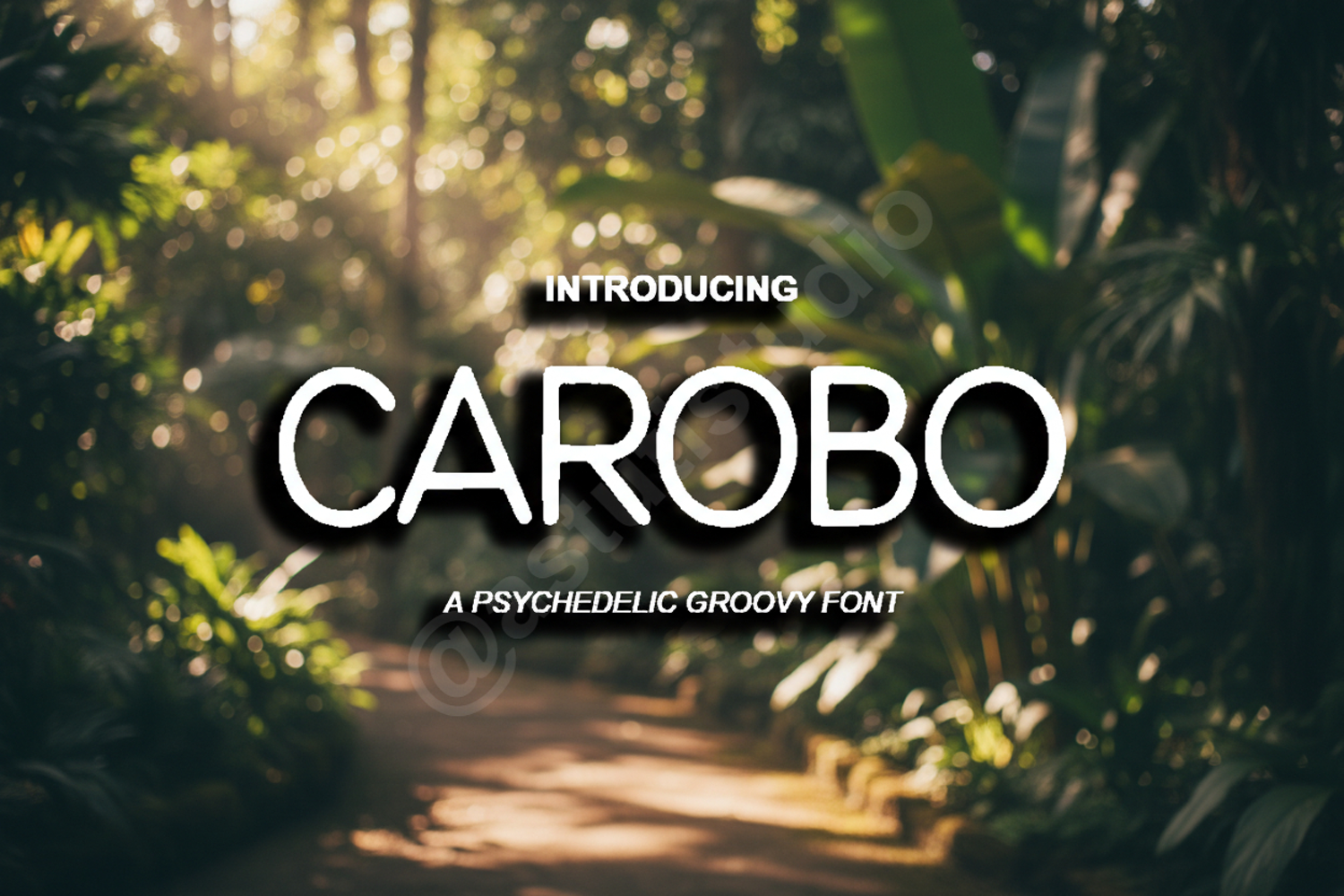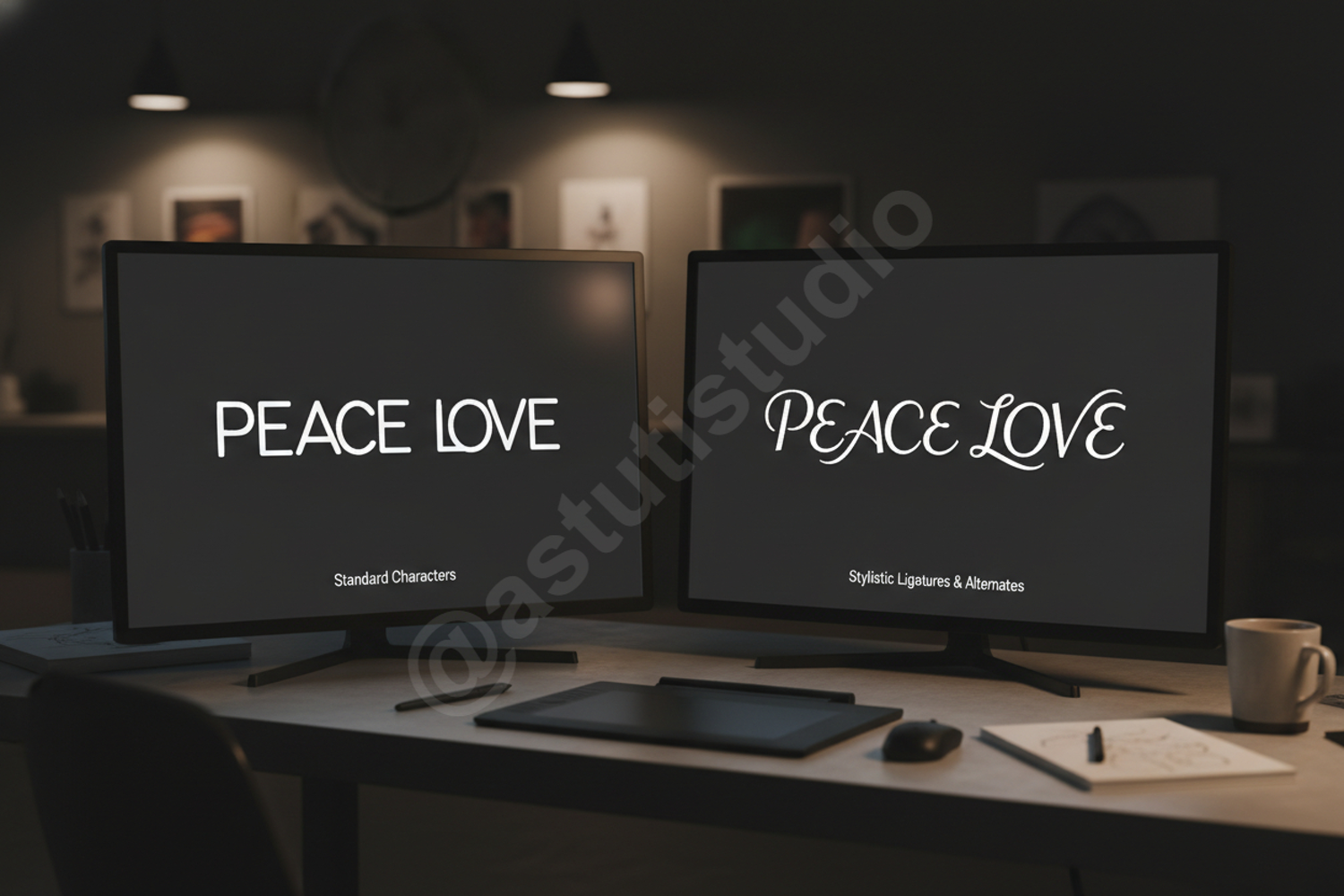
Carobo - Sophisticated Modern Serif Display
Carobo
Elevate your creative projects with Carobo, a premium serif font that masterfully blends classic elegance with a contemporary edge. Designed for those who demand excellence, Carobo offers a refined aesthetic that commands attention while maintaining superior legibility. Its balanced proportions and unique character details make it a versatile addition to any designer's toolkit, ensuring your work exudes professional quality and timeless style.